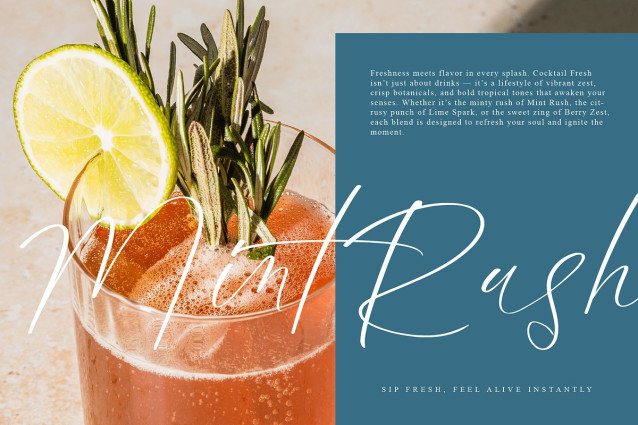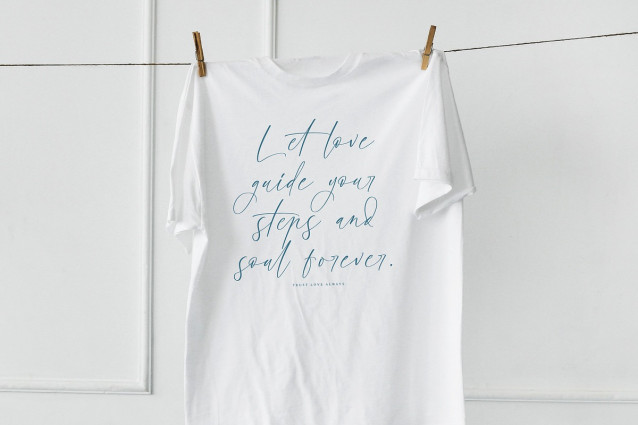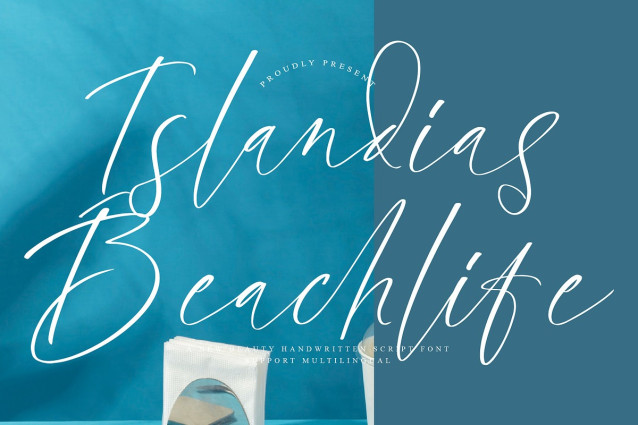
Islandias Beachlife Font
Islandias Beachlife Font – A New Beauty Handwritten Script Font, from Operatype, perfect for any project like: logos, branding projects, homewares designs, product packaging, mugs, quotes, posters, shopping bags, t-shirts, covers books, business cards, invitation cards, greeting cards, labels, photography, watermarks, special events and all your other luxury projects that require a premium taste.